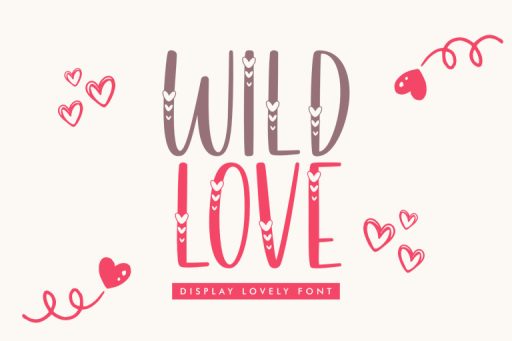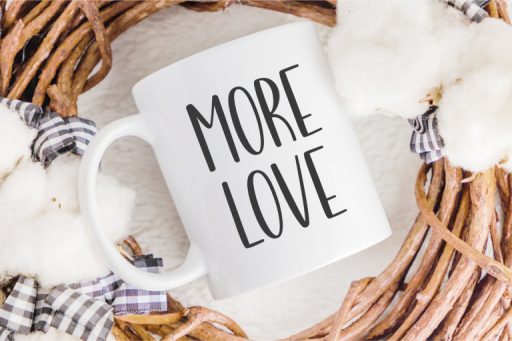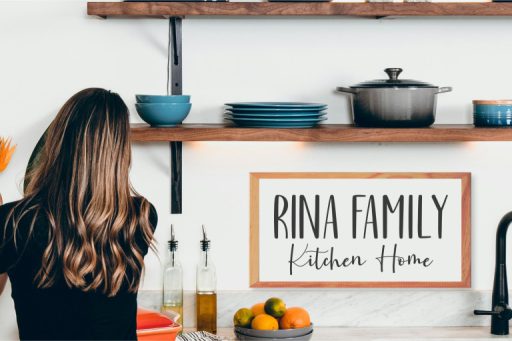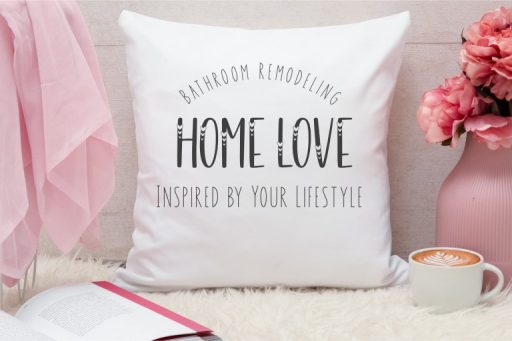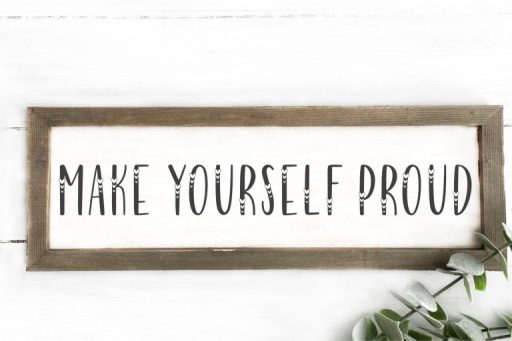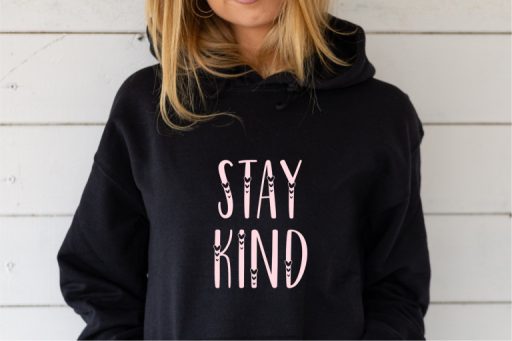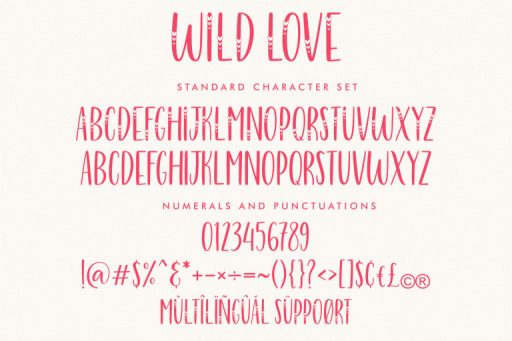
Wild Love - Lovely Valentine Font From Jimtype Studio
Wild Love
Wild Love – Lovely Font from Jimtype Studio
Embark on a passionate design journey with “Wild Love,” an exquisite font that weaves the enchantment of love, romance, and fanciful elegance into every letter.
Unleash the power of Wild Love Font to infuse your designs with passion, romance, and a touch of extravagant charm. Ideal for wedding invitations, love-themed branding, or any project where love takes center stage.